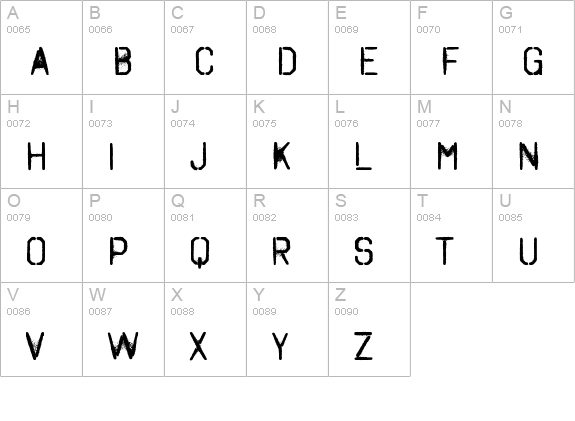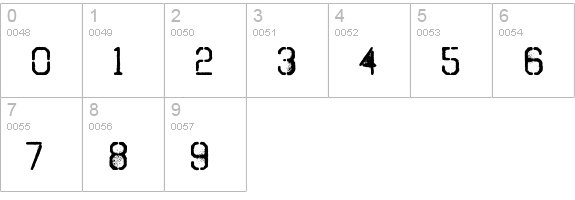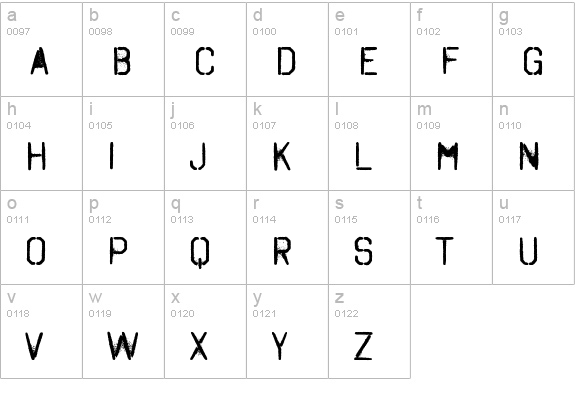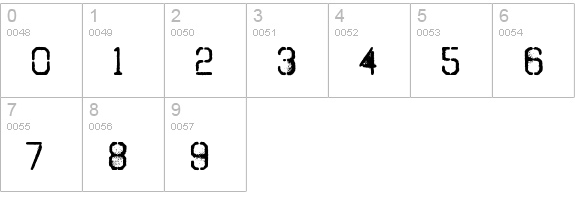
Octin Spraypaint Free Font Details
Octin Spraypaint Free font is a bold and edgy typeface that exudes a raw and gritty aesthetic. With its rough brush strokes and urban-inspired design, this font is perfect for making a statement in your design projects. Whether you're creating posters, banners, or album covers, Octin Spraypaint Free font will add a distinctive and rebellious touch to your work. The best part? Octin Spraypaint Free font is available for download for free at FontsMarket.com. You can easily access this unique font and start using it in your projects without any cost. Embrace the urban vibe and unleash your creativity with Octin Spraypaint Free font today!